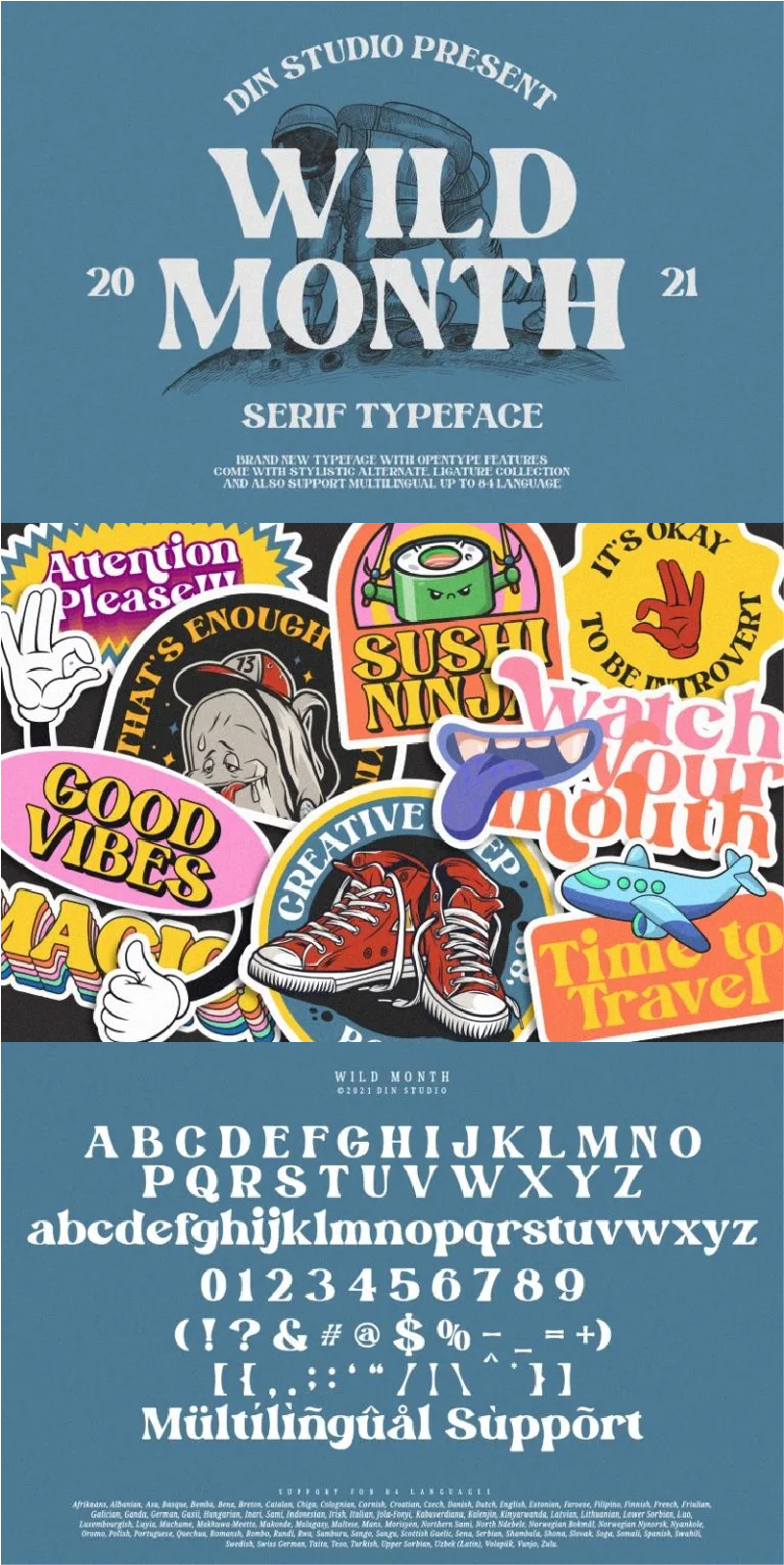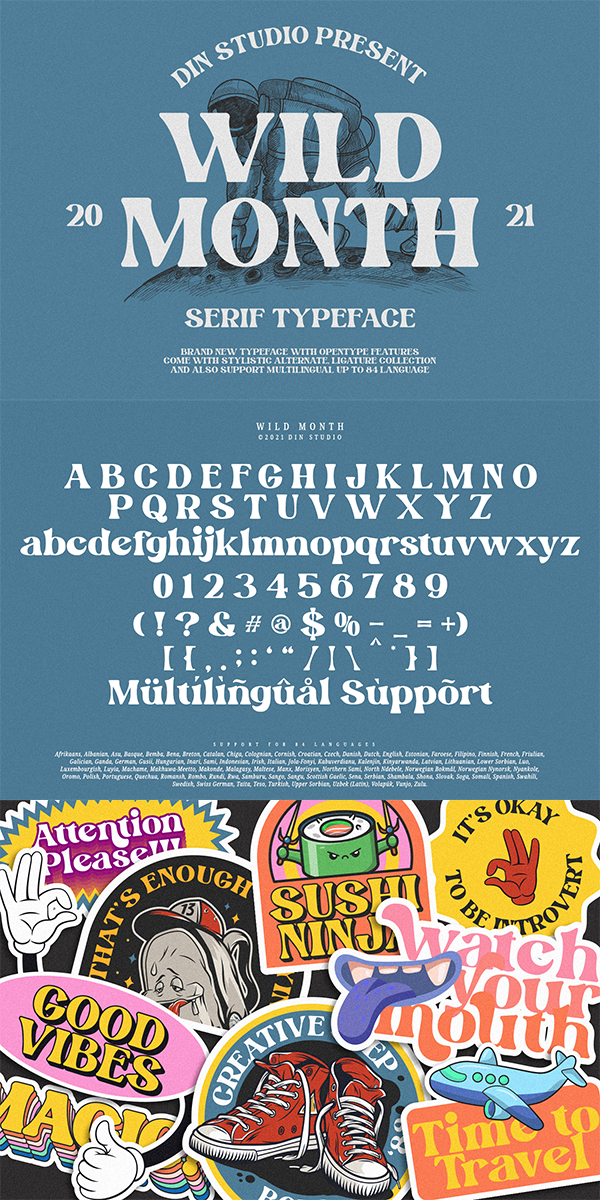
WILD MONTH Font
About WILD MONTH
Hi, Everyone! Are you looking for a fabulous, stylish, modern, and adventurous font to make your branding bold? If so, we’ve got what you want. Let’s welcome the Wild Month, serif font.
It is a serif typeface that is made from the uppercase and lowercase letters. It is an excellent choice to add the right amount of modernity. This artistic typeface looks very interesting for loads of different projects and promotions. It is a great all-in-one package for your logos, book covers, posters, t-shirts, brandings, and advertisement needs.
Our font always includes Multilingual Supports to make your branding reach a global audience. See the previews above to get some inspiration on how you can use them. Enjoy the font!